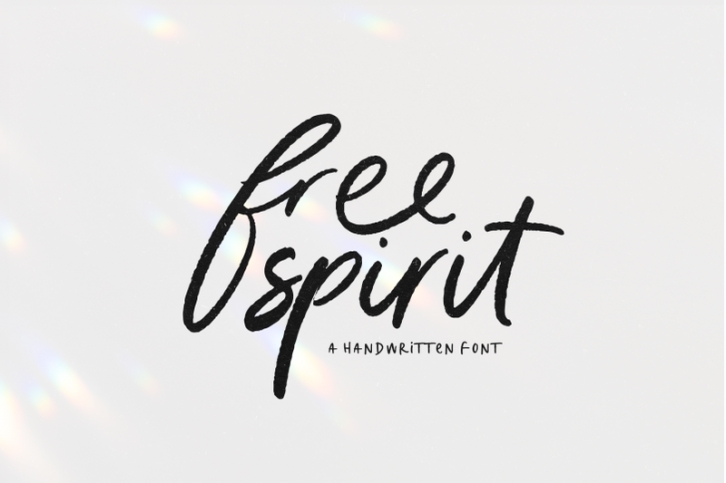
Free Spirit is a casual handwritten font with a bit of texture. It has an authentic look making it perfect for branding and digital designs.
Does not include accent characters at this time.